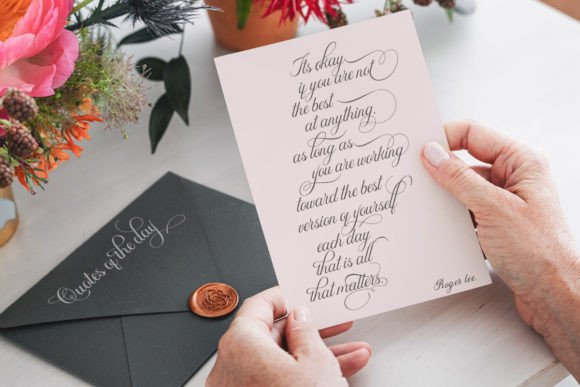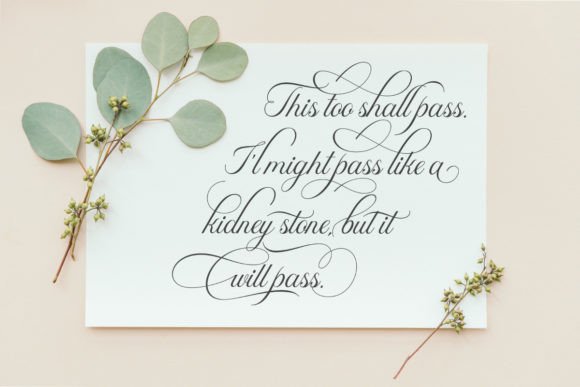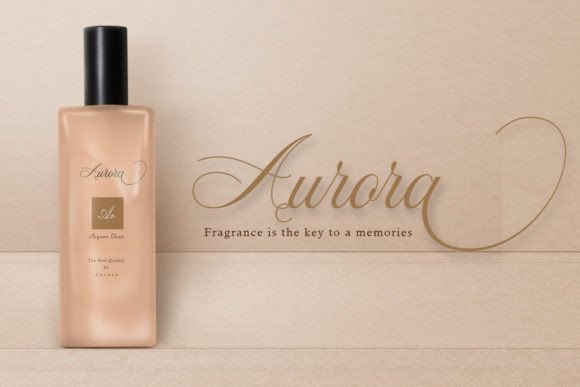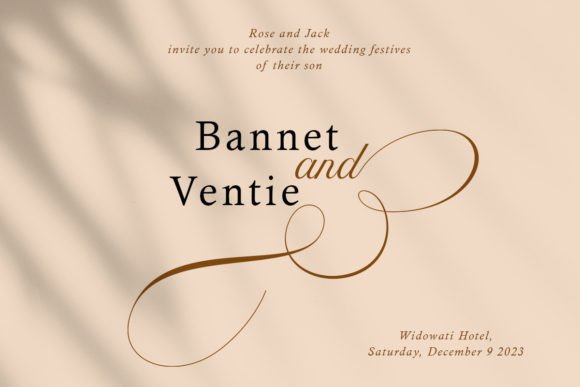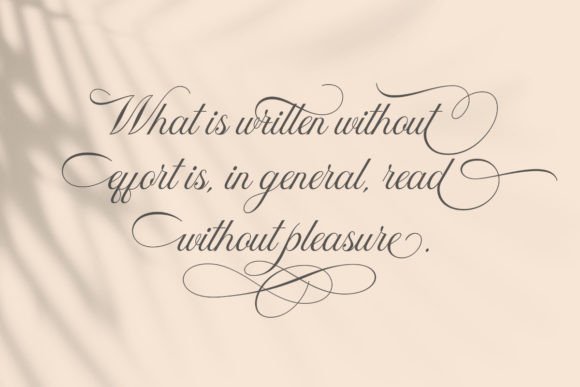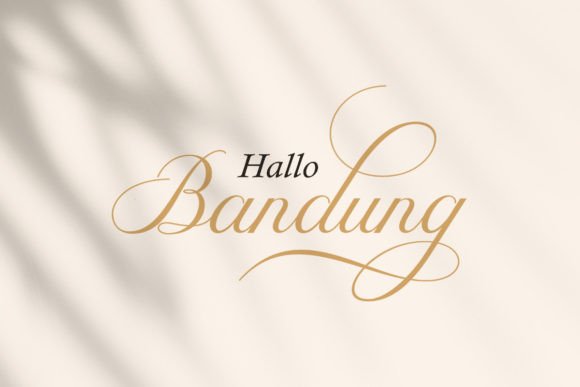
Introduction to Donaparte Font
Donaparte is a delicate, elegant, and flowing handwritten font.
It has beautiful and well-balanced characters and as a result, it matches a wide pool of designs Add it to your most creative ideas and notice how it makes them come alive.
Key Features of Donaparte Font